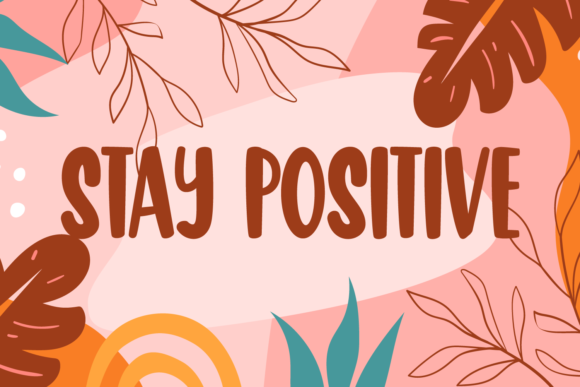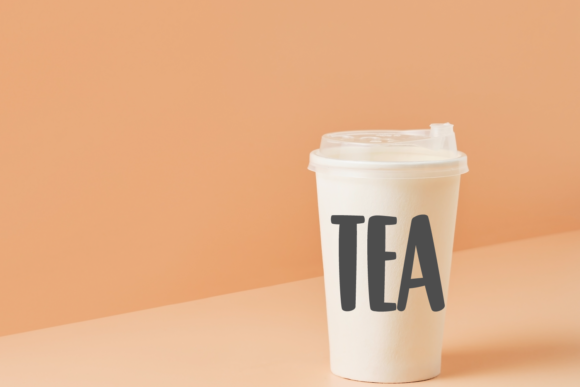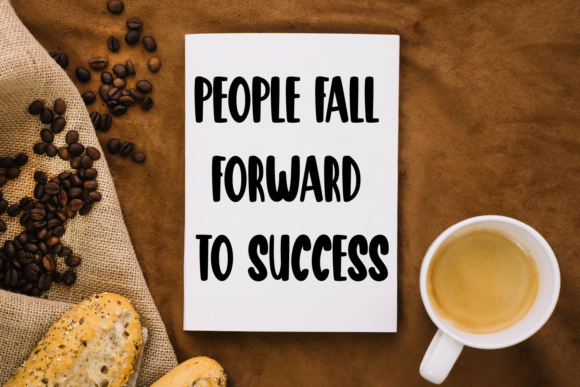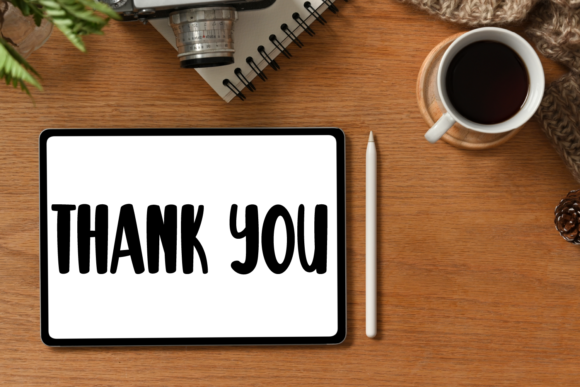
Introduction to Boho Designer Font
Remember the moment when you stumble upon the perfect font for your creative project? It’s like a spark of inspiration that sets your design ablaze. For designers, finding the right font can make all the difference between a good design and a great one. And that’s exactly what we’re about to explore – the Boho Designer Font, a modern display font that’s sure to elevate your design game.
With its smooth curves and stylish aesthetic, the Boho Designer Font is perfect for fashion branding or editorial designs. Whether you’re working on a high-end fashion magazine or a trendy boutique’s website, this font is sure to add a touch of sophistication and glamour to your design. And the best part? It’s a free download, making it an invaluable resource for designers of all levels.
Key Features of Boho Designer Font
- High-quality, unique font design perfect for creative projects and design resources.
- Features a transparent background, making it easy to use with different backgrounds and designs.
- Designed with a bohemian flair, this font is ideal for projects that require a touch of elegance and sophistication.
- Includes a range of characters and glyphs, making it suitable for a variety of design applications, from logos to typography.
Honest Review: Boho Designer Font
As a designer, I’m always on the lookout for high-quality design resources to enhance my creative projects. The Boho Designer Font caught my eye with its unique and eclectic vibe, making it perfect for adding a touch of bohemian flair to my designs.
- ✨ Unique and creative font styles that can add a touch of personality to any design project.
- ✨ High-quality vector files that are perfect for scalable designs.
- ✨ Transparent background, making it easy to combine with other design elements.
- ⚠️ Limited character set, which may not be suitable for extended text-based designs.
Overall, the Boho Designer Font is a great addition to any designer’s toolkit, especially for creative projects that require a unique and eclectic vibe. While it may have some limitations, the quality and versatility of the font make it a worthwhile download for any design enthusiast.
For the best results, use the Boho Designer Font on a transparent background to create a clean and elegant design. Experiment with different font sizes and styles to add depth and visual interest to your project.
The Boho Designer Font is perfect for creative projects such as wedding invitations, social media graphics, and branding materials. Its high-quality design makes it an excellent choice for designers and non-designers alike.